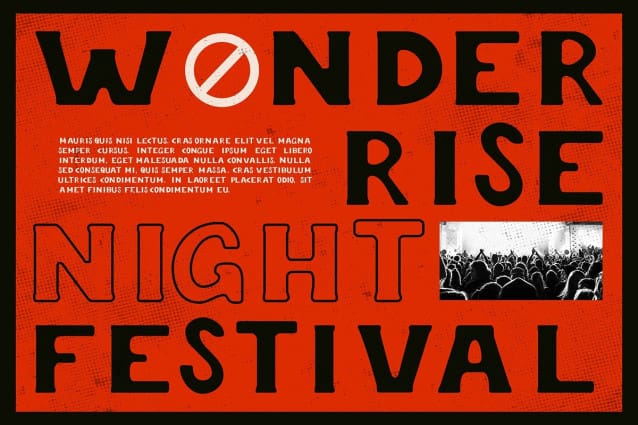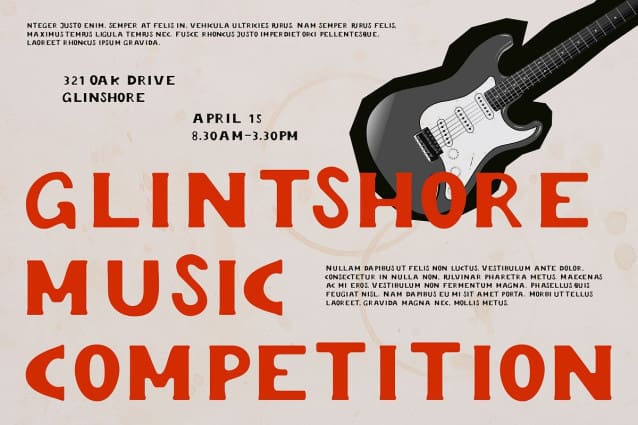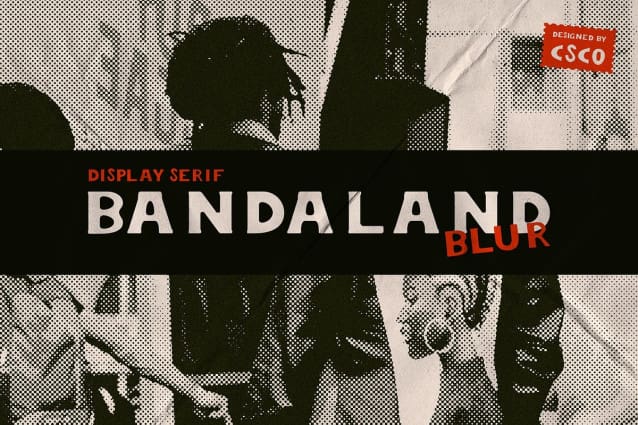
Bandaland Blur Font
Bandaland Blur Font is a modern serif font that commands attention with its bold design, creating a strong and daring impression. Characterized by clear and elegant lines, this font strikes the perfect balance between sophistication and contemporary style. Each letterform is thoughtfully crafted, exuding confidence and modernity that make it ideal for impactful designs.
Dynamic Blur Effect for Depth The unique blur effect applied to Bandaland Blur adds a dynamic touch, giving each character an illusion of depth and movement. This visual enhancement not only captivates the eye but also infuses the text with a sense of energy and life. The interplay between boldness and the blur effect creates a striking aesthetic that draws viewers in and invites them to engage with the message.
Versatile Applications for Modern Visual Appeal With its eye-catching design, Bandaland Blur is perfect for a wide range of applications, including posters, branding, and promotional materials. Whether you are crafting attention-grabbing advertisements, elegant event invitations, or contemporary branding, this font ensures that your message stands out with striking visual appeal. Its modern characteristics make it versatile enough to fit various design contexts, delivering a cohesive and stylish look.